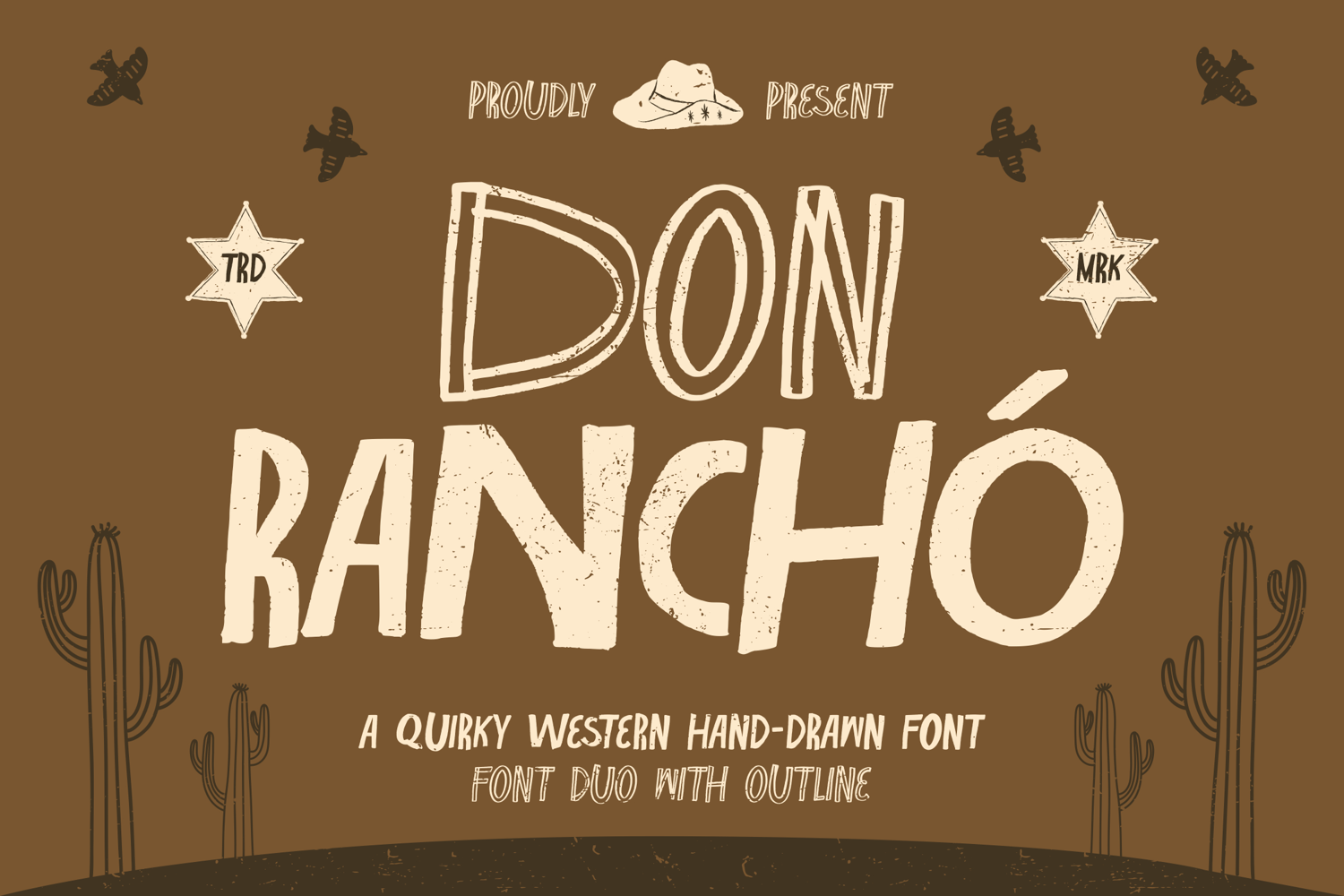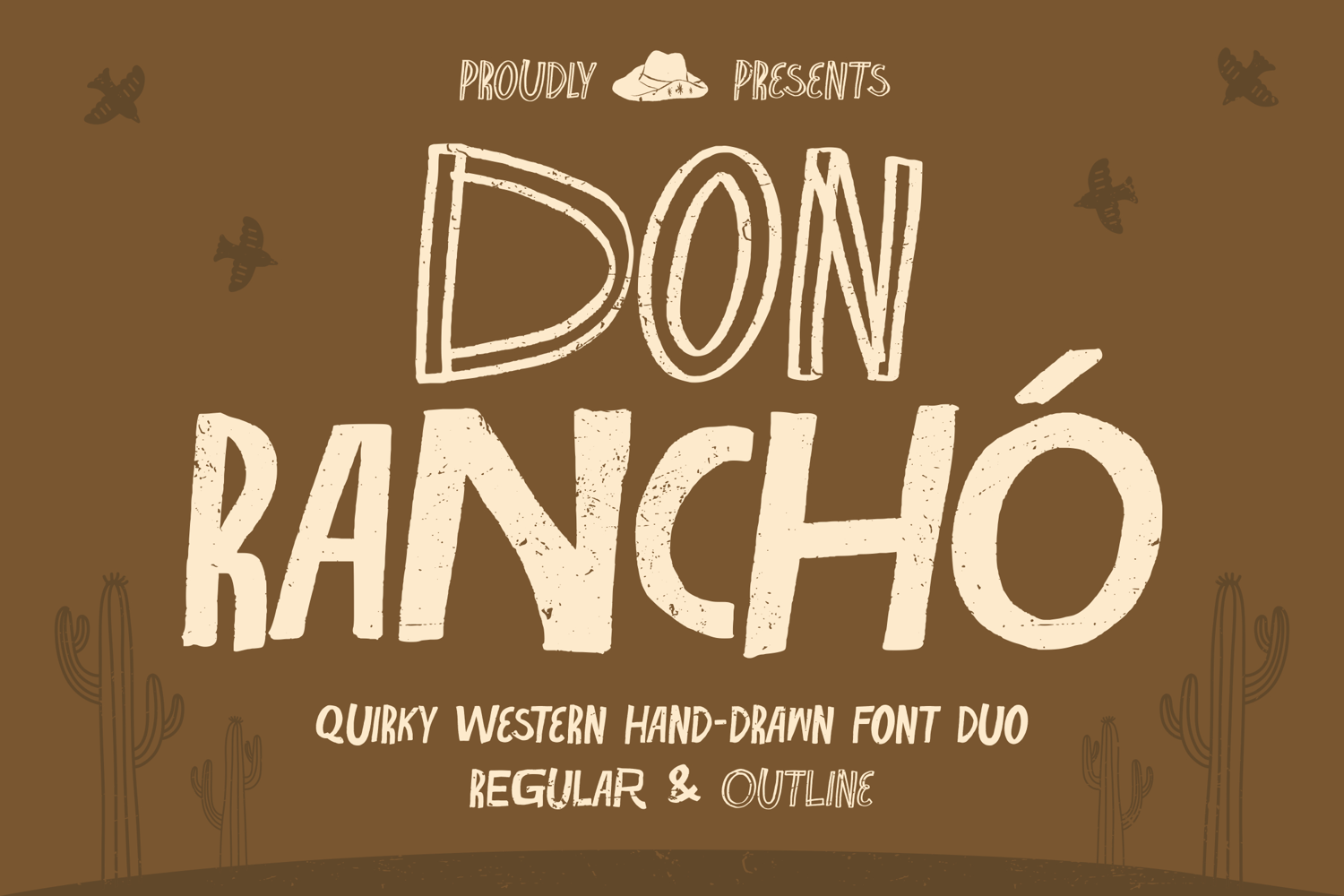
Meet Don Rancho, a quirky Western hand-drawn display font family made for restaurant logos, food packaging, vintage signage, posters, apparel, and merchandise.
Inspired by vintage ranch signs, desert landscapes, cantina lettering, and handcrafted food branding, Don Rancho combines irregular shapes, rough edges, and playful proportions to create a bold rustic personality.
Built with Regular and Outline styles, this two-style Western font family gives you the freedom to create strong standalone headlines or playful layered typography with a genuine handmade feel.
Perfect for designs that need to feel rustic, bold, friendly, imperfect, and unmistakably original.
Behind the Design
Don Rancho combines bold display impact with the warmth and imperfection of hand-drawn lettering.
Use Don Rancho Regular for strong logos, headlines, packaging, and signage with a rough Western character.
Use Don Rancho Outline to add contrast, rhythm, and a lighter handcrafted detail.
Its approachable shapes make Don Rancho playful enough for taco shops, cafés, posters, and merchandise while staying bold enough for complete restaurant identities, packaging systems, and campaigns.
Font Features
- Quirky Western hand-drawn display font
- 2 coordinated styles: Regular and Outline
- Rough edges and irregular letterforms
- Playful handcrafted proportions
- Uppercase and lowercase characters
- Numerals, punctuation, and symbols
- OpenType features
- Multilingual support
Bring raw Western characters to your next restaurant logo, food package, vintage sign, poster, apparel graphic, or merchandise project with Don Rancho.